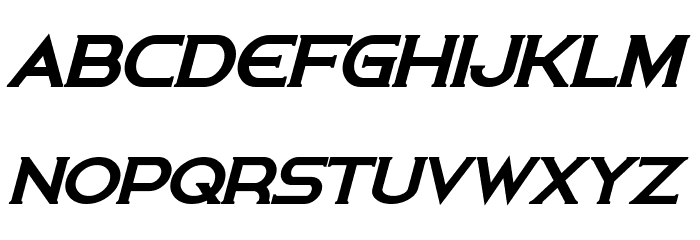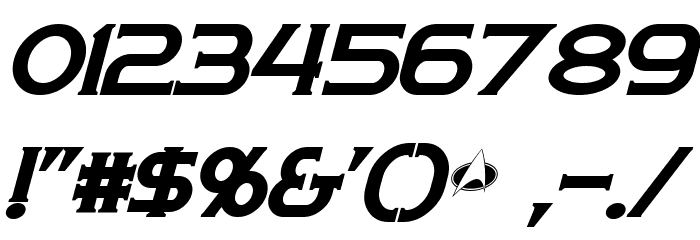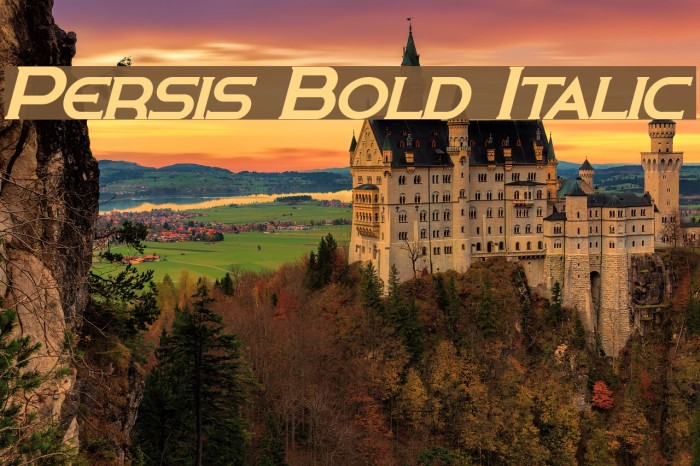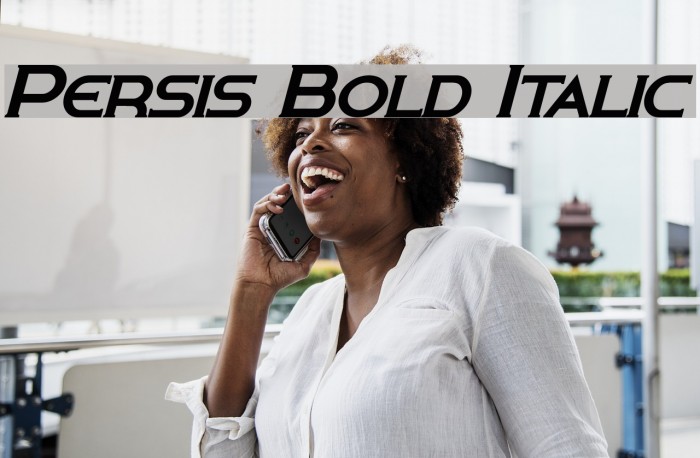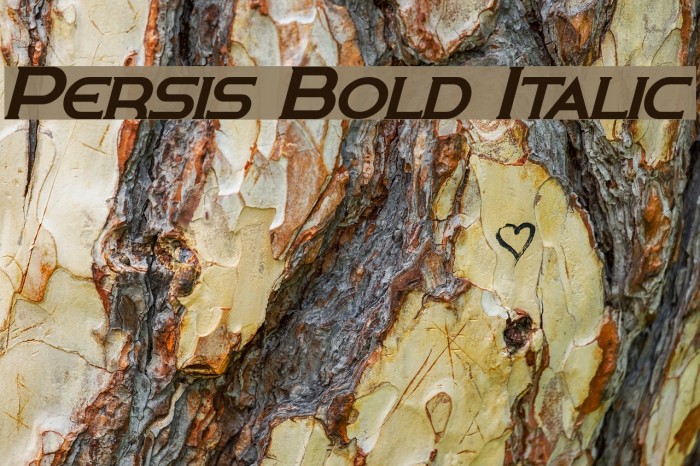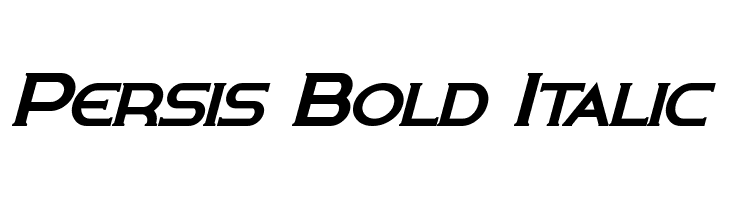
Persis Bold Italic Font
This font features a bold and italic style with a modern and futuristic aesthetic. The characters are sharply angled, giving them a dynamic and forward-leaning appearance. The strokes are thick and consistent, providing a strong visual impact. The uppercase and lowercase letters maintain a uniform style, with the lowercase letters mirroring the angular design of the uppercase. The numbers are equally bold and maintain the same angular characteristics. Special characters are designed to match the overall style, ensuring a cohesive look across all glyphs. This font is ideal for projects that require a bold statement and a modern touch.
A bold, italic, and modern font with angular and dynamic characters.
- Proposed Projects: Ideal for sci-fi themed designs, branding, posters, and headlines that require a futuristic and bold appearance.
- Overall Style: Futuristic